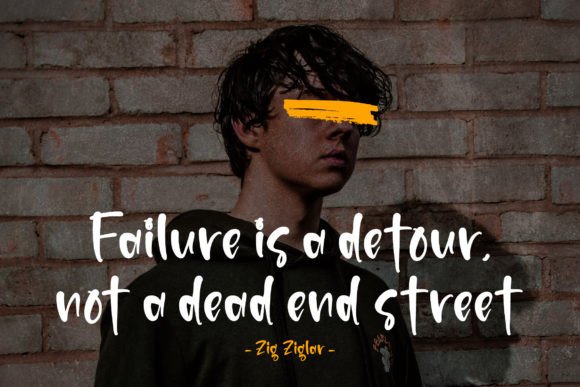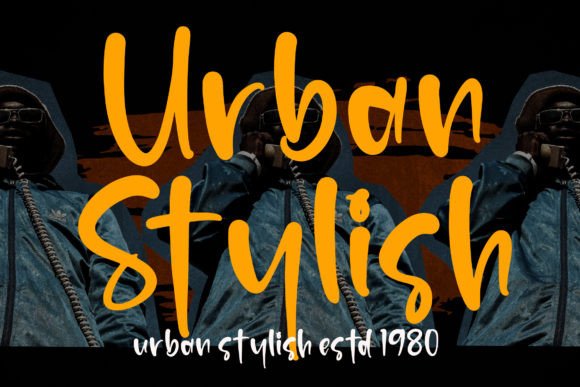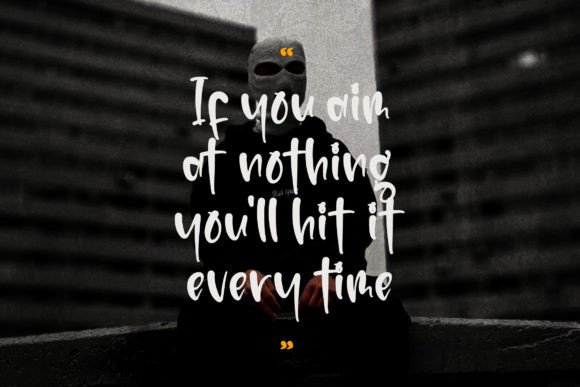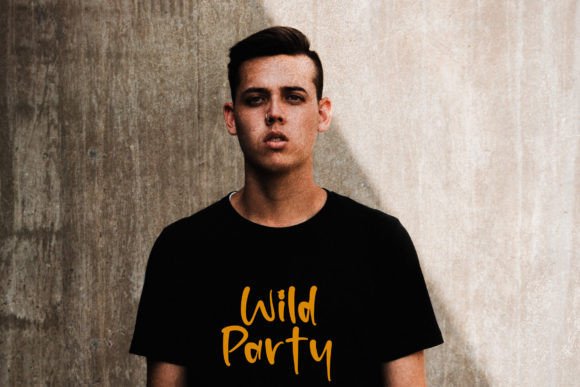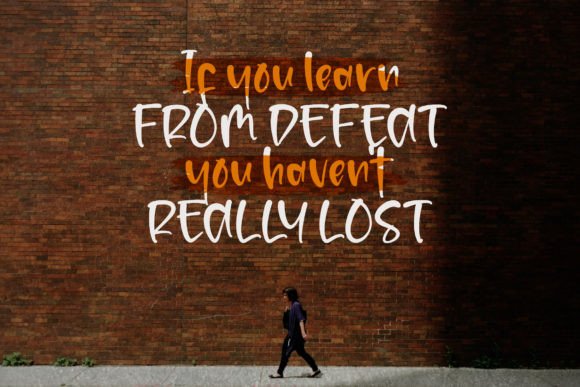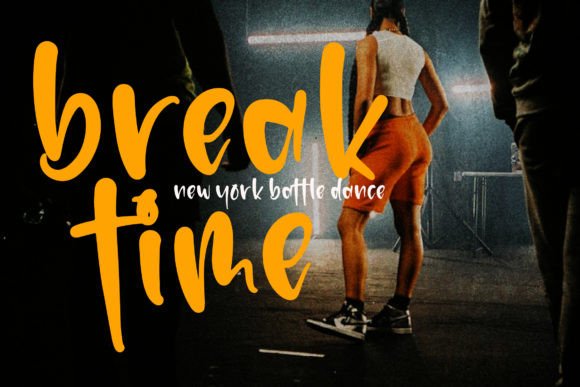
Caitozar Font: The Ultimate Urban-Style Handwritten Font for Modern Designs
In the world of typography, fonts play a crucial role in conveying the tone and personality of a design. For designers and crafters looking for a fresh and trendy look, the Caitozar Font is an excellent choice. This modern, cool, and urban-style handwritten font is perfect for creating streetwear, posters, stickers, mugs, and any other design that requires a bold and edgy aesthetic.
What is Caitozar Font?
Caitozar Font is a unique and stylish handwritten font that embodies the spirit of urban culture. Its modern and cool design makes it an ideal choice for designers who want to add a touch of sophistication and trendiness to their work. The font’s urban-style aesthetic is characterized by its bold lines, fluid curves, and edgy flair, making it perfect for creating designs that appeal to a young and fashion-conscious audience.
Key Features of Caitozar Font
The Caitozar Font boasts several key features that make it an excellent choice for modern designs. Some of its notable features include:
- Modern and Cool Design: The font’s sleek and contemporary design ensures that your designs look fresh and trendy.
- Urban-Style Aesthetic: The font’s bold lines, fluid curves, and edgy flair give it an urban-style aesthetic that’s perfect for streetwear and fashion designs.
- Handwritten Style: The font’s handwritten style adds a personal touch to your designs, making them more relatable and engaging.
- Versatile: The Caitozar Font is versatile and can be used for a wide range of design applications, from posters and stickers to mugs and streetwear.
Use Cases for Caitozar Font
The Caitozar Font is an excellent choice for a variety of design applications, including:
- Streetwear: The font’s urban-style aesthetic makes it perfect for creating bold and eye-catching streetwear designs.
- Posters: The font’s modern and cool design ensures that your posters stand out and grab attention.
- Stickers: The font’s bold lines and edgy flair make it ideal for creating stickers that are both fun and trendy.
- Mugs: The font’s handwritten style and urban-style aesthetic make it perfect for creating unique and personalized mug designs.
Why Choose Caitozar Font?
There are several reasons why designers and crafters should choose the Caitozar Font for their designs. Some of the benefits of using this font include:
- Unique and Stylish: The Caitozar Font is a unique and stylish font that adds a touch of sophistication and trendiness to your designs.
- Easy to Read: The font’s clear and legible design ensures that your designs are easy to read and understand.
- Versatile: The font’s versatility makes it perfect for a wide range of design applications.
- Time-Saving: The Caitozar Font saves you time and effort, allowing you to focus on other aspects of your design.
In conclusion, the Caitozar Font is an excellent choice for designers and crafters looking for a modern, cool, and urban-style handwritten font. Its unique and stylish design, versatility, and ease of use make it perfect for creating a wide range of designs, from streetwear and posters to stickers and mugs. With the Caitozar Font, you can add a touch of sophistication and trendiness to your designs and appeal to a young and fashion-conscious audience.